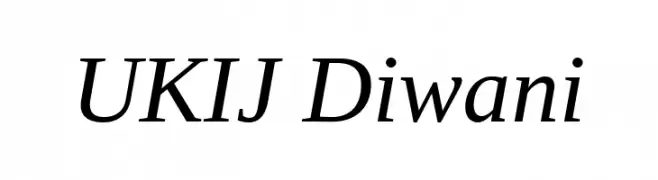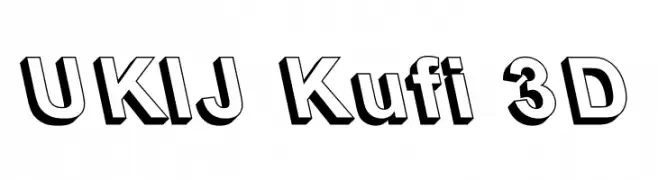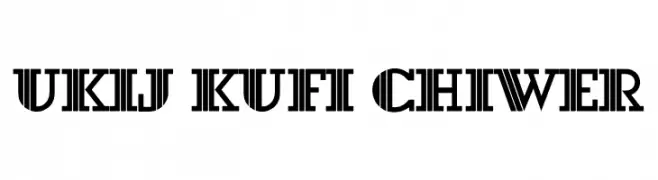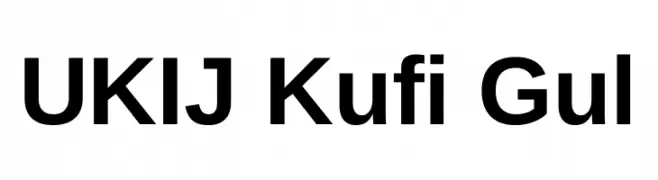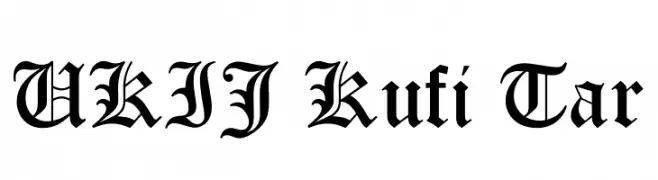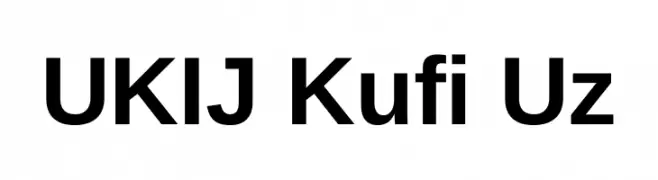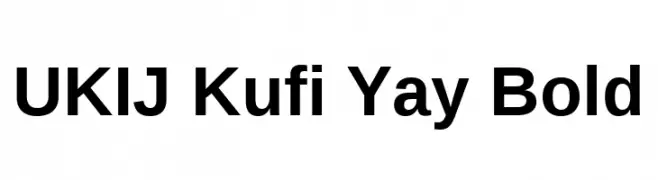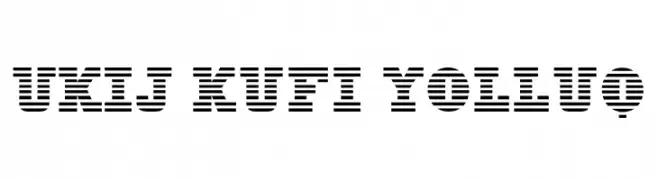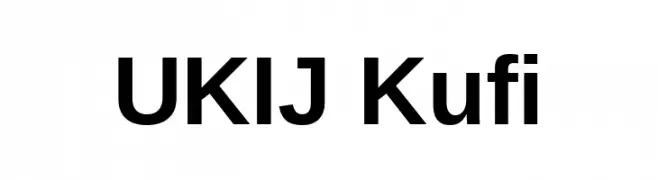
A modern sans-serif font with clean lines and a slightly condensed width.
A traditional blackletter font with ornate, angular letterforms and high contrast.
A bold, 3D font with strong shadow effects, perfect for impactful designs.
A modern sans-serif font with clean lines and balanced proportions.
A bold, decorative font with a unique horizontal striped pattern.
A bold, striped font with a modern, geometric style.
A clean, modern sans-serif font with excellent readability and versatility.
A bold, modern sans-serif font with clean, geometric lines.
A decorative font with architectural motifs and bold, geometric letters.
Elegant serif font with a slight italic slant, offering a classic and sophisticated look.